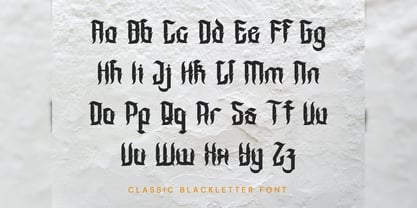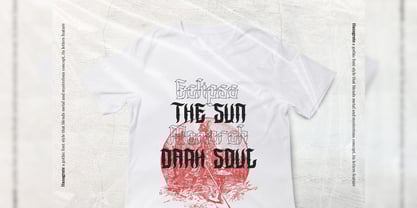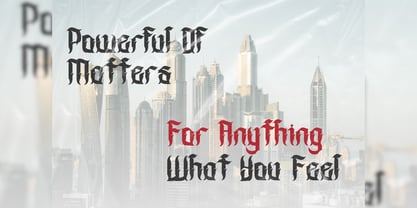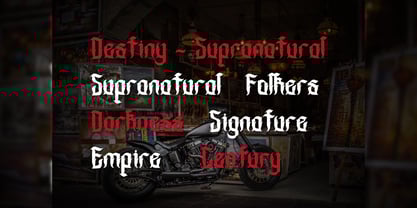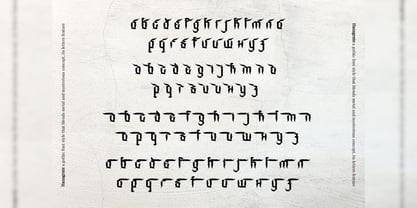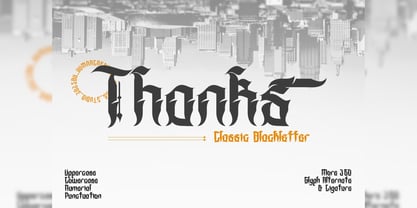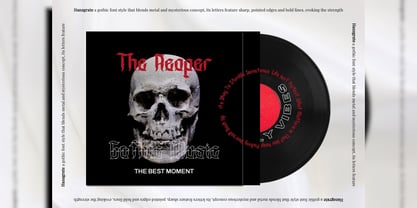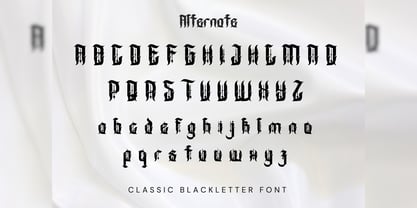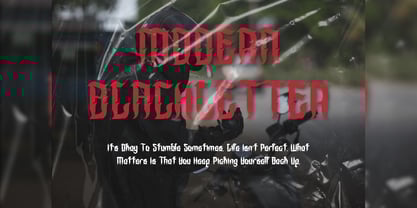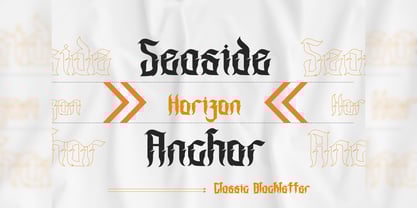
Hansgrate
by Yumnacreative
The Hansgrate Font Family was designed by Dhimas Habibie and published by Yumnacreative. Hansgrate contains 1 styles.
Introducing Hansgrate – Classic Blackletter Font
Hansgrate – Classic Blackletter Font is a bold blackletter fraktur display font that merges traditional Gothic aesthetics with modern impact. Its intricate letterforms feature sharp angles, dramatic strokes, and striking contrasts, embodying strength, authority, and historical charm. The bold weight enhances its commanding presence, making it ideal for designs that demand attention and sophistication
FEATURES
– Uppercase and Lowercase letters
– Alternate and Ligature
– Numbering and Punctuations
– Multilingual Supports